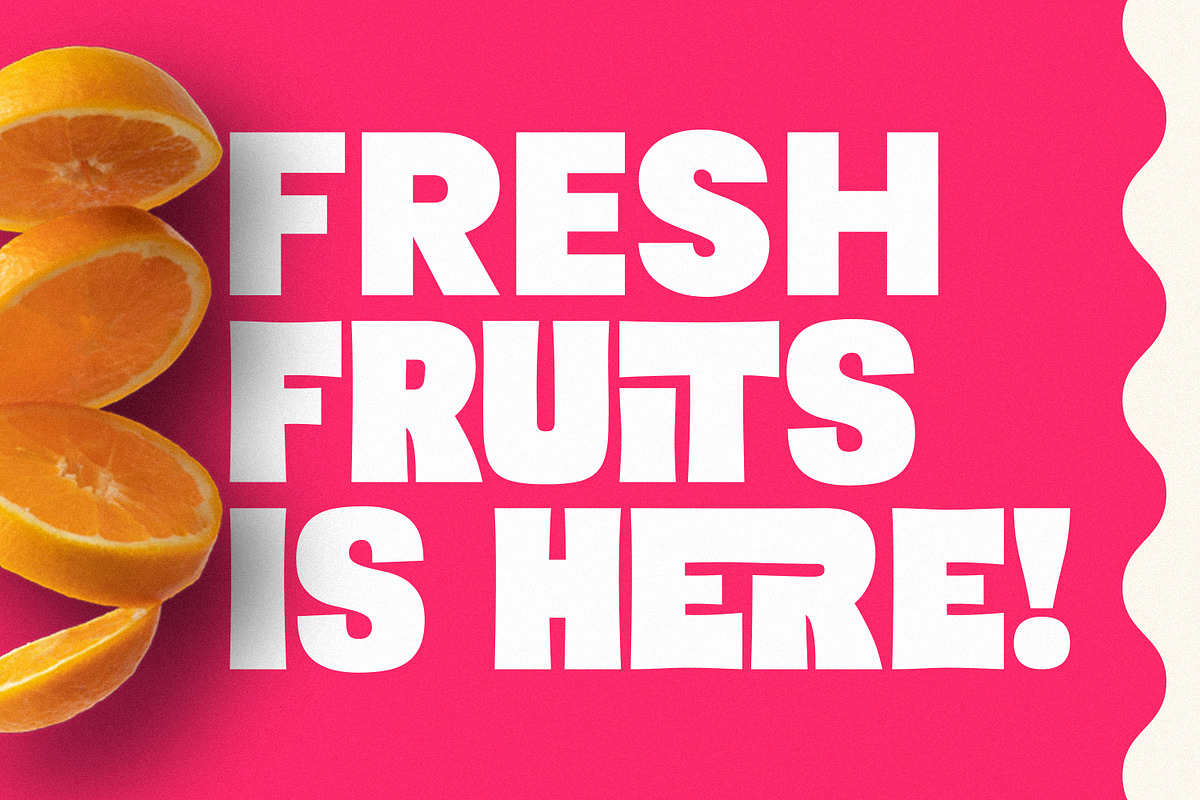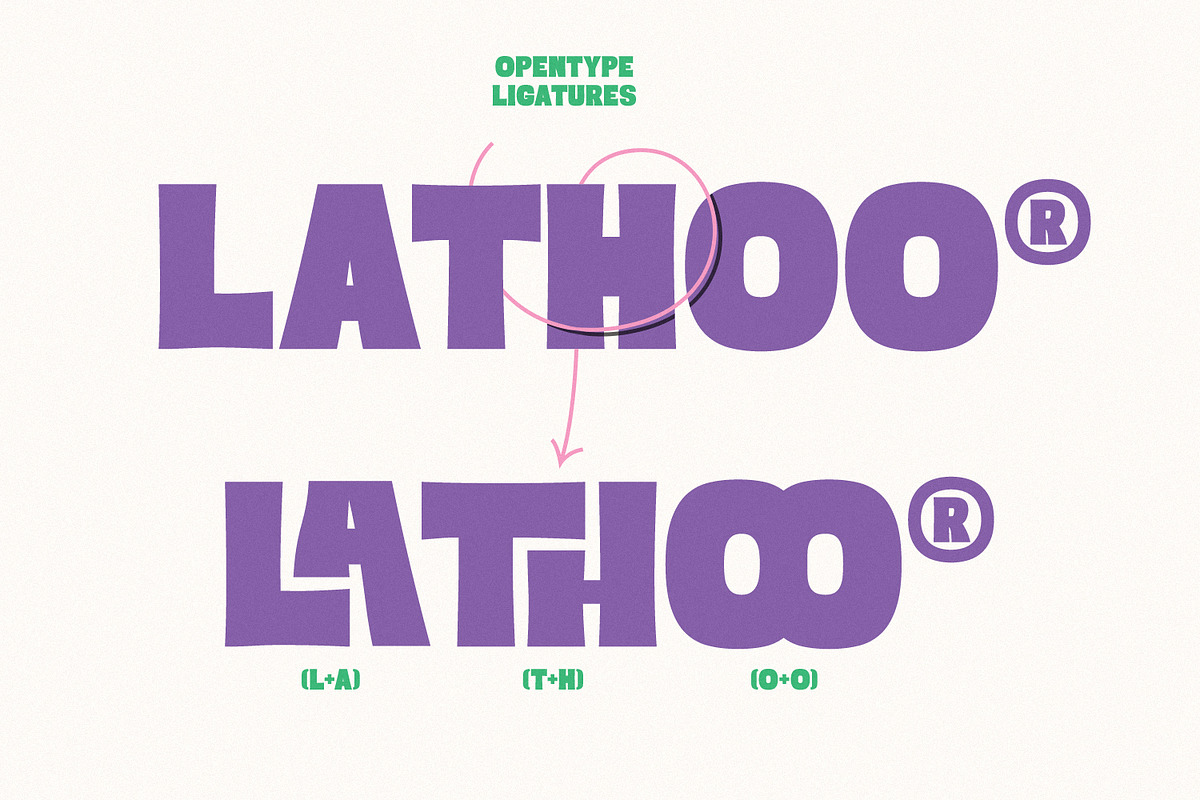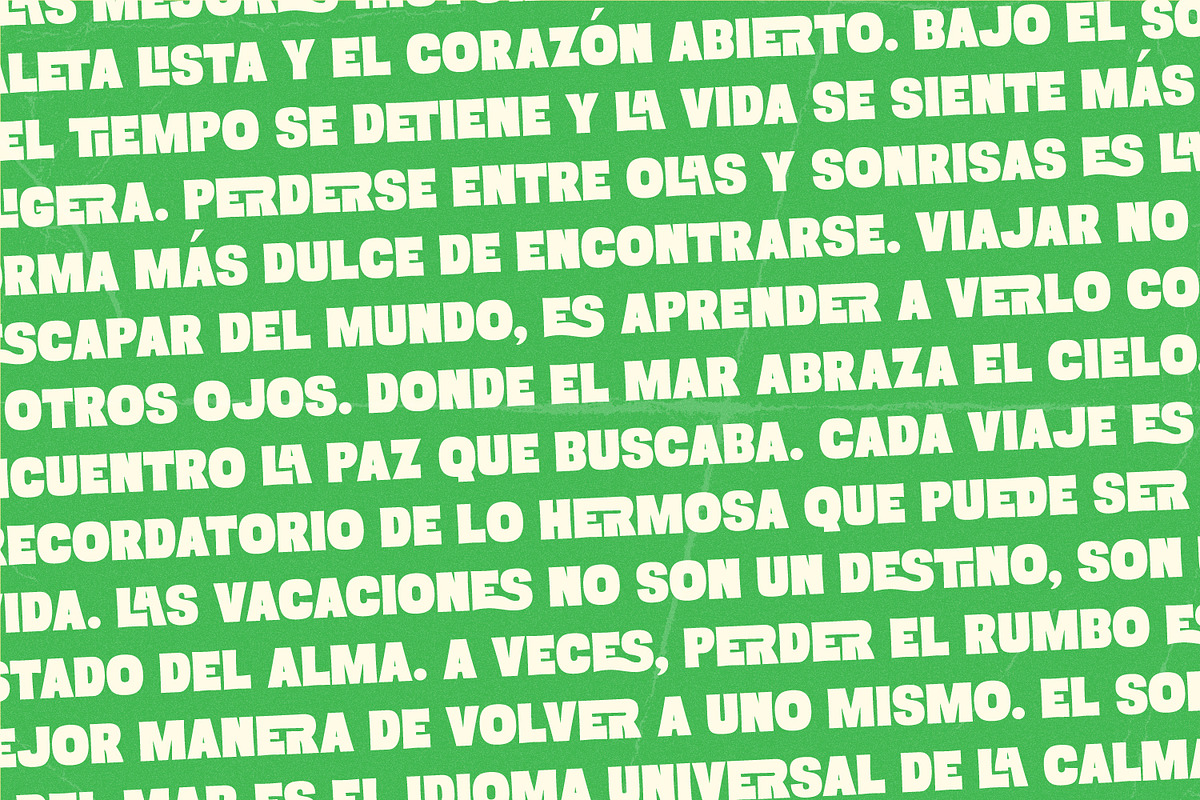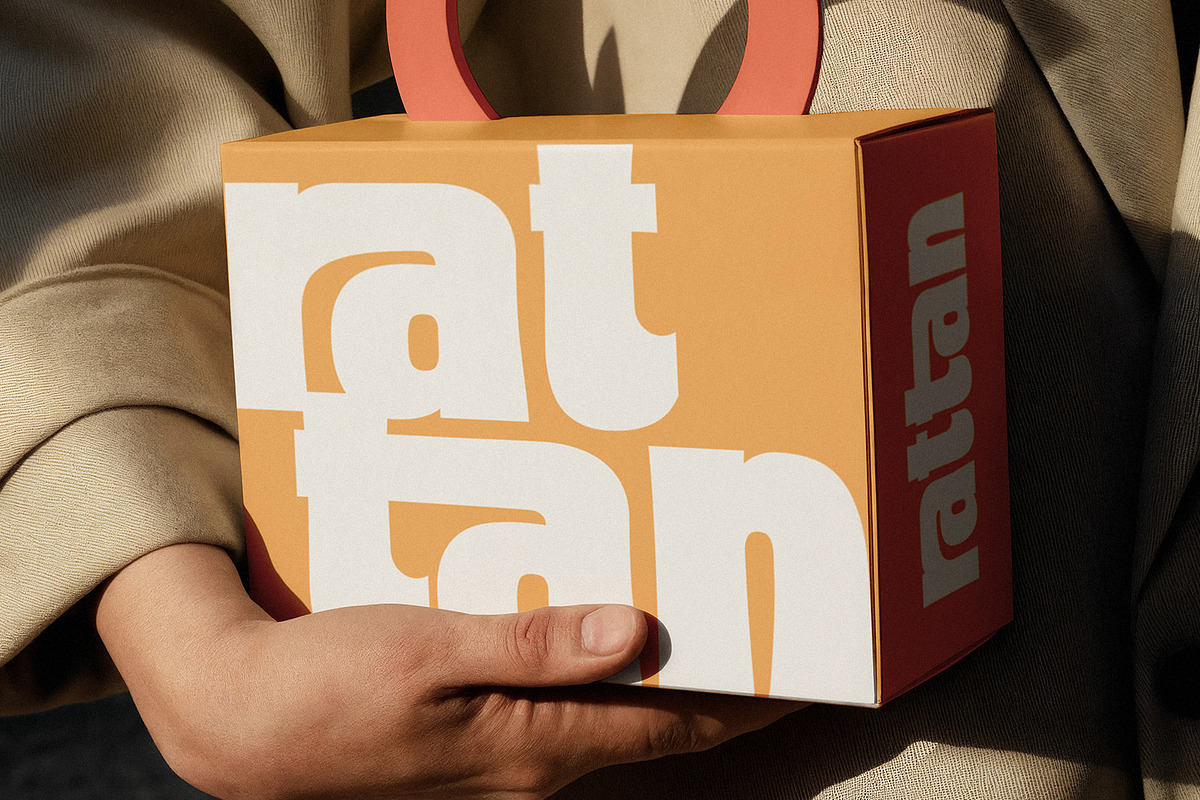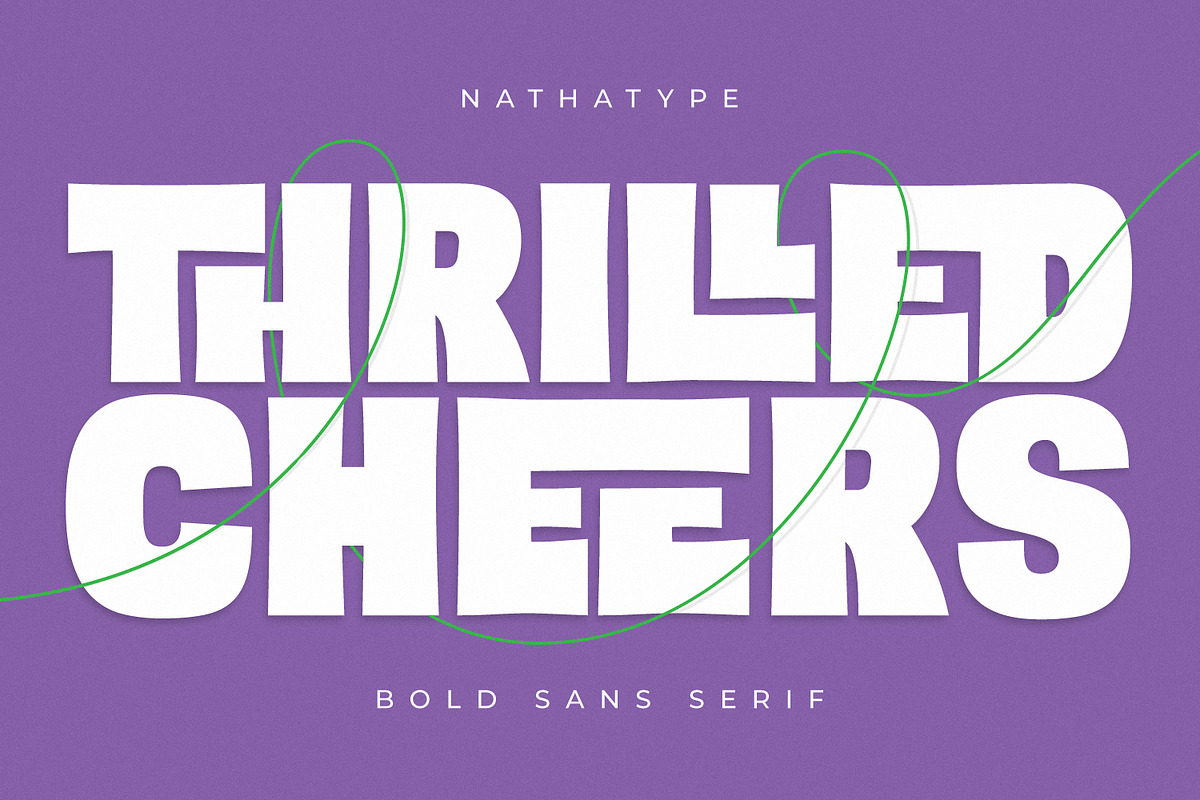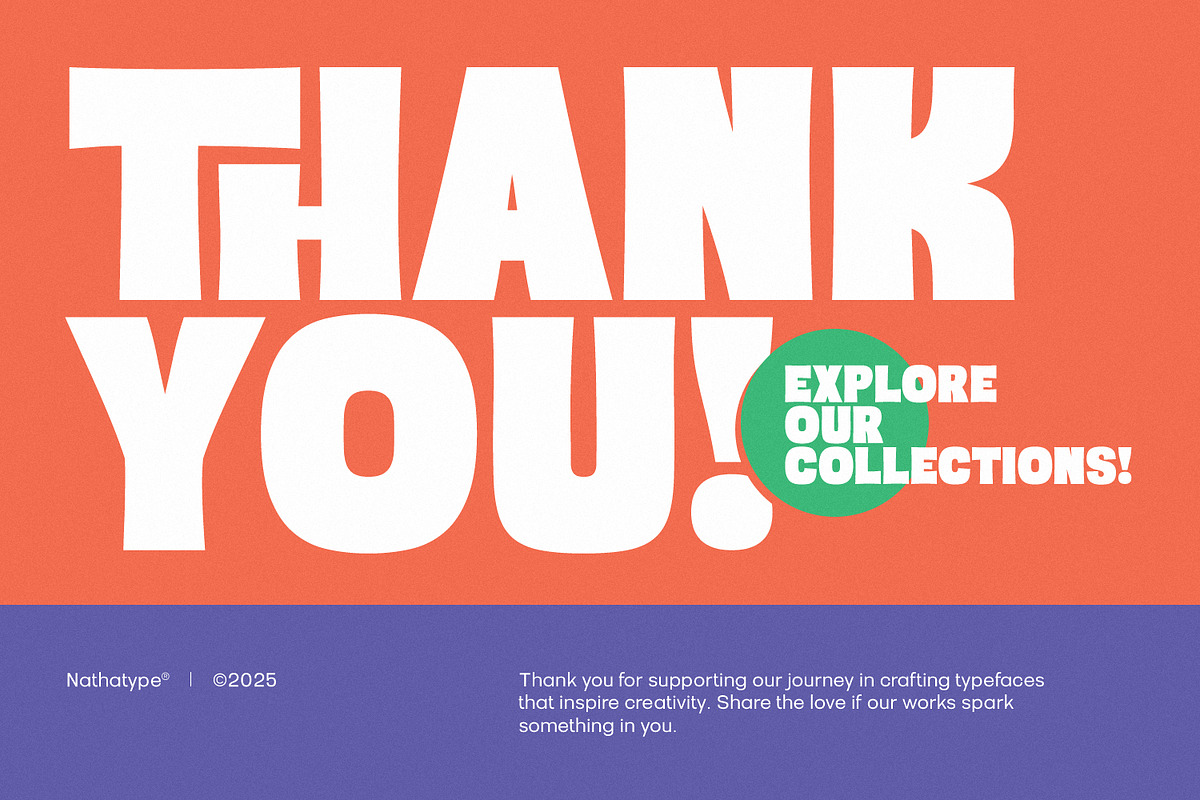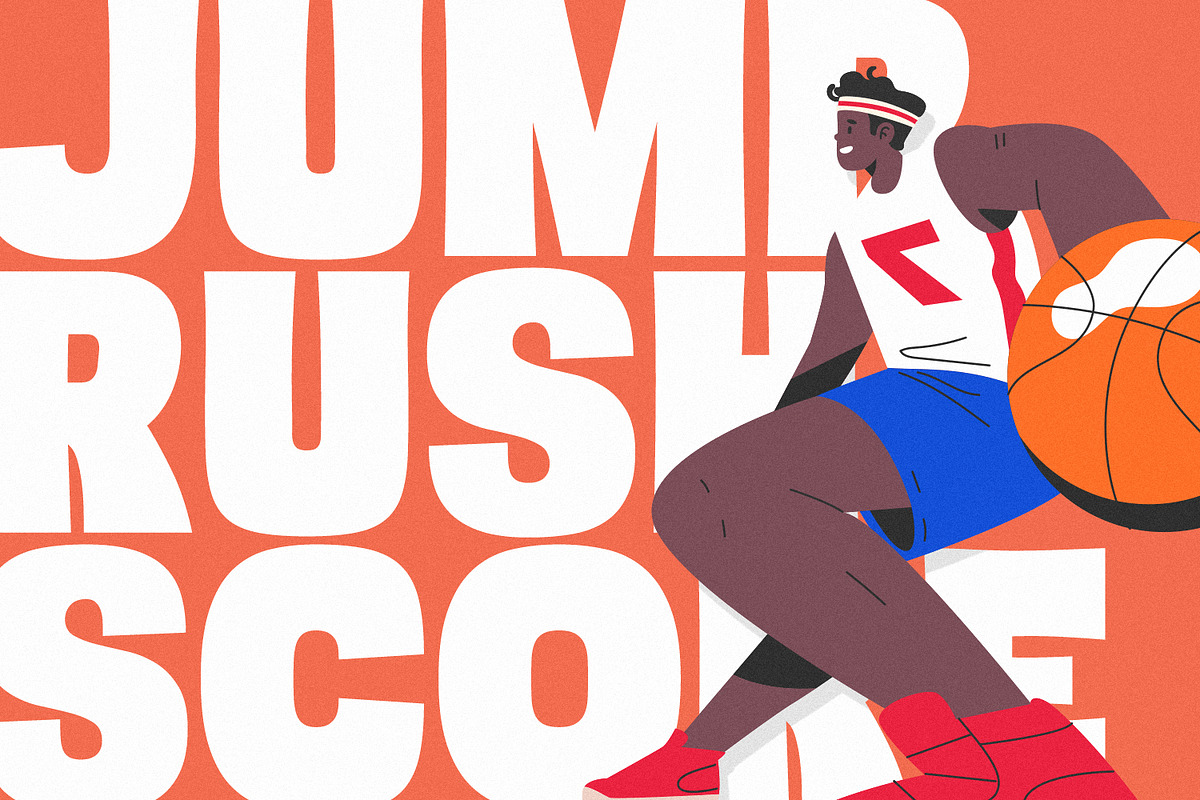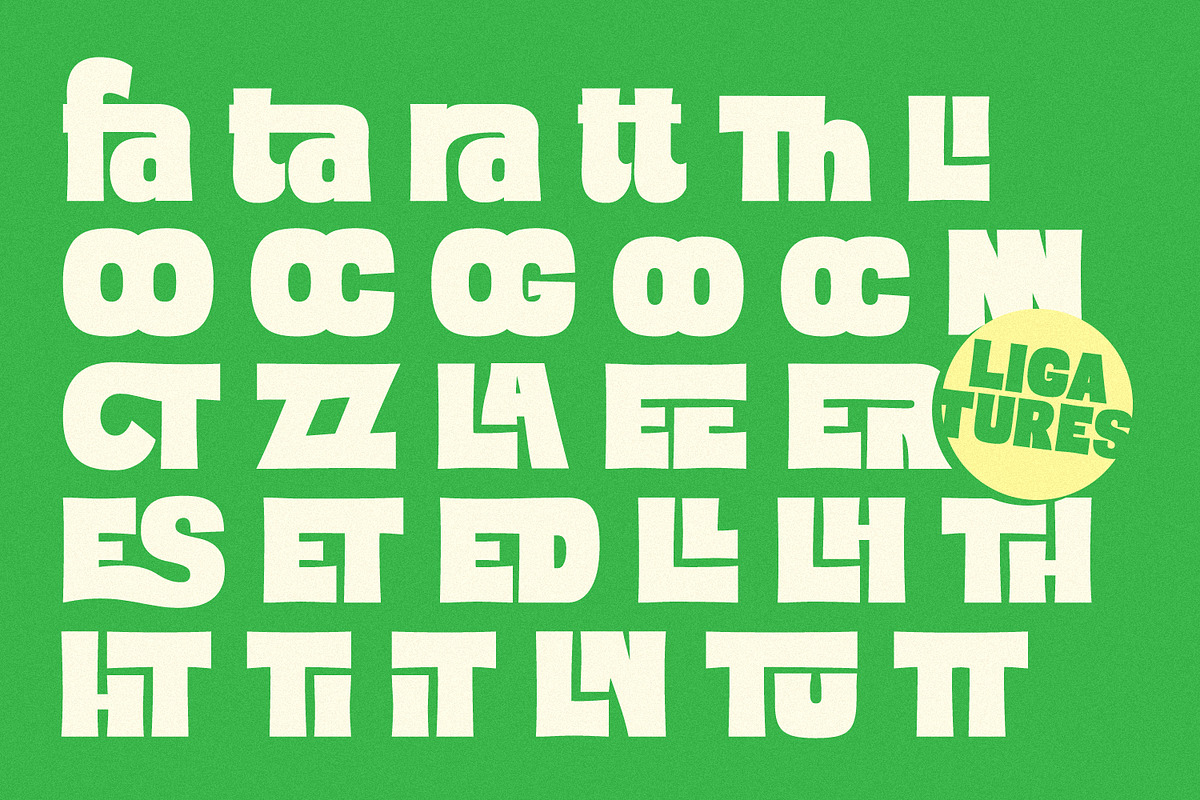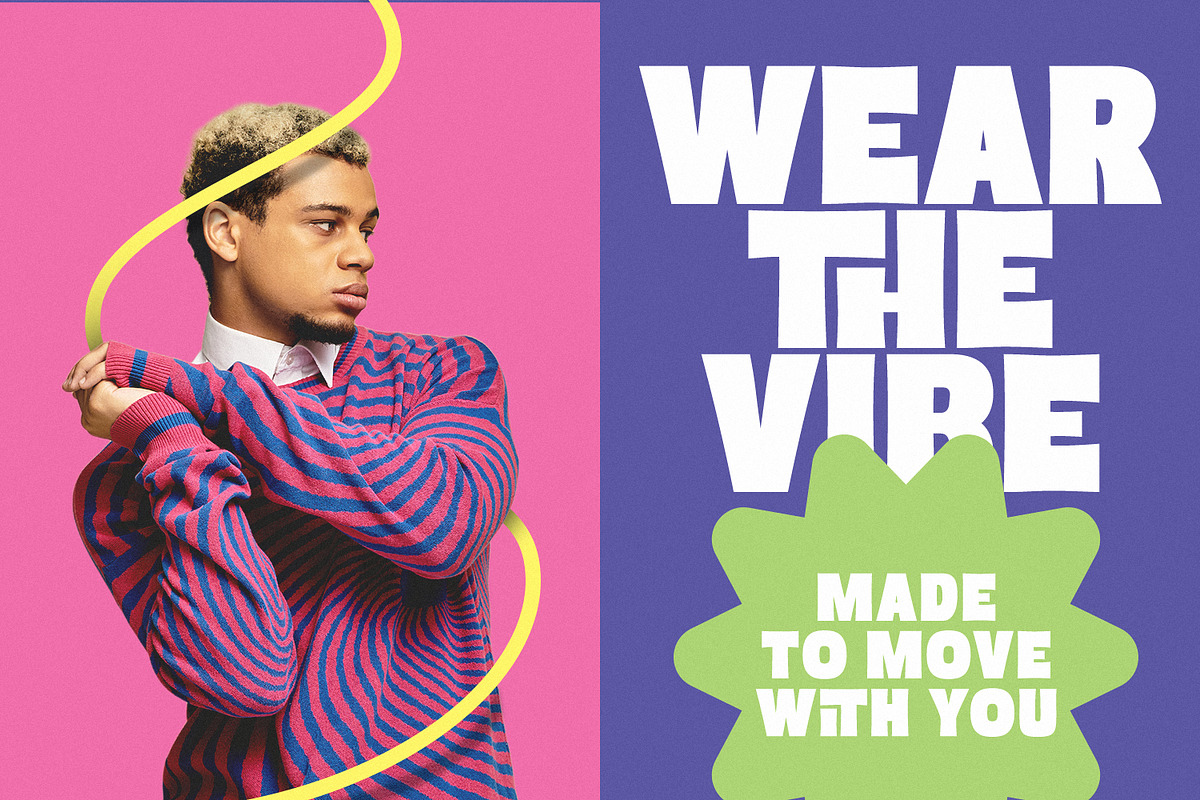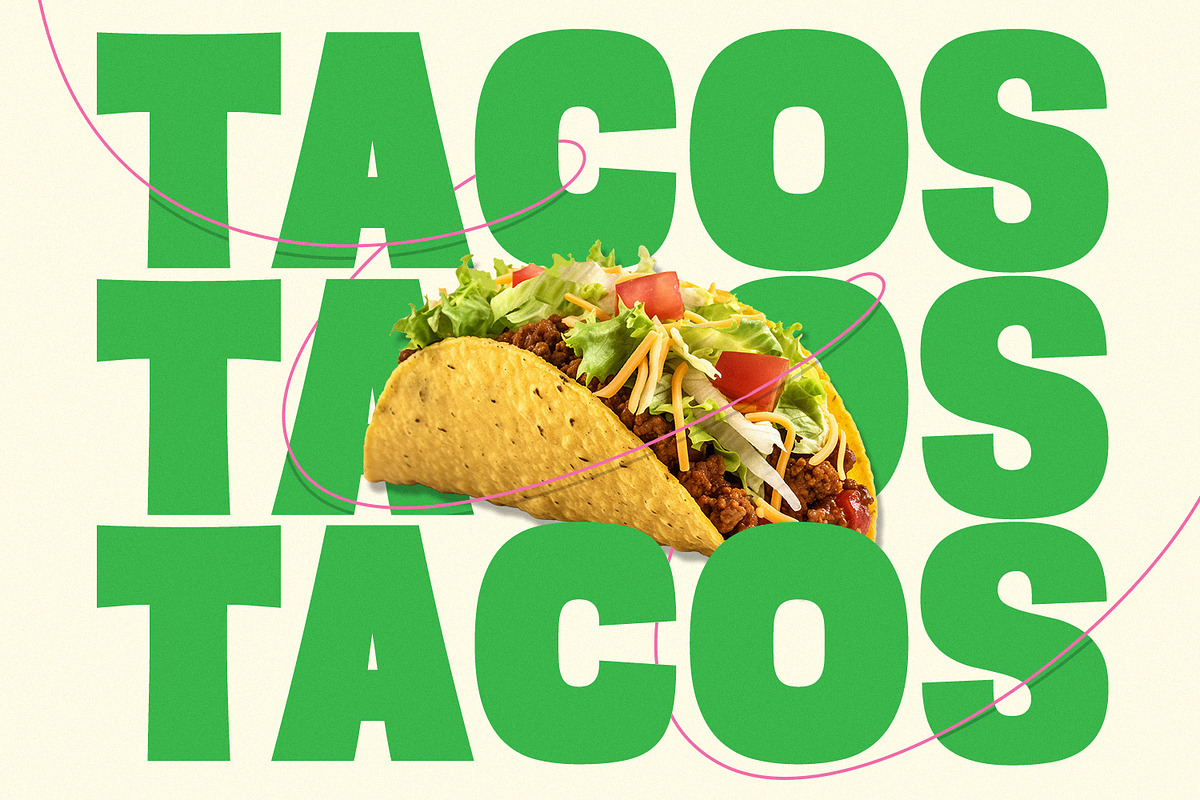
Thrilled Cheers
Thrilled Cheers is a powerful sans serif font designed with a very thick weight and low letter contrast, creating a commanding visual presence that stands out in any design. Crafted for designers who want maximum impact with minimal distraction, Thrilled Cheers combines solid structure, modern geometry, and bold clarity to deliver a font that is both eye-catching and highly readable. Its bold weight stands out effortlessly in large sizes, while its clean construction keeps readability high even at smaller scales. In addition, enjoy the features here.
Thrilled Cheers fits in logos, quotes, branding, posters, and many more designs. Find out more ways to use this font by taking a look at the font preview.